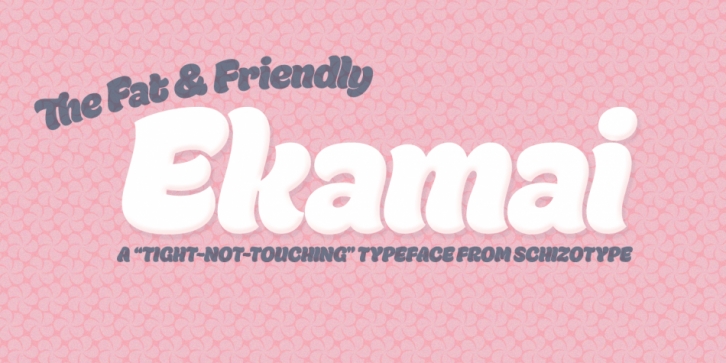
Ekamai is a brush script font published by Schizotype Fonts.
This is Ekamai, named after the district of Bangkok I now have the pleasure of calling home. It is based on Quinella, and was supposed to be a quick and easy reworking of that font into a “tight-not-touching” (rather than overlapping) version. As is often the case with quick and easy things, it turned out to be neither and the vast majority of glyphs needed to be completely overhauled to fit the new system.
This face is deliciously plump face, with lovingly rendered curves and just the right amount of cuteness; perfect for food packaging (of the sweeter variety probably!), logos, magazine headlines and the like. It performs admirably in all caps settings. The numerals are expressive hybrid figures (somewhere between lining and oldstyle). The overall feel is friendly and soft, without being overtly saccharine.
Ekamai is equipped with subtle contextual alternates (which I’d recommend leaving on) to help with the tight fit, a handful of discretionary ligatures if that’s your thing, and a case feature for all caps settings. The stylistic alternates and stylistic set 1 features simply change the # glyph to an attractive numero. Automatic fractions are included along with wide-ranging language support.